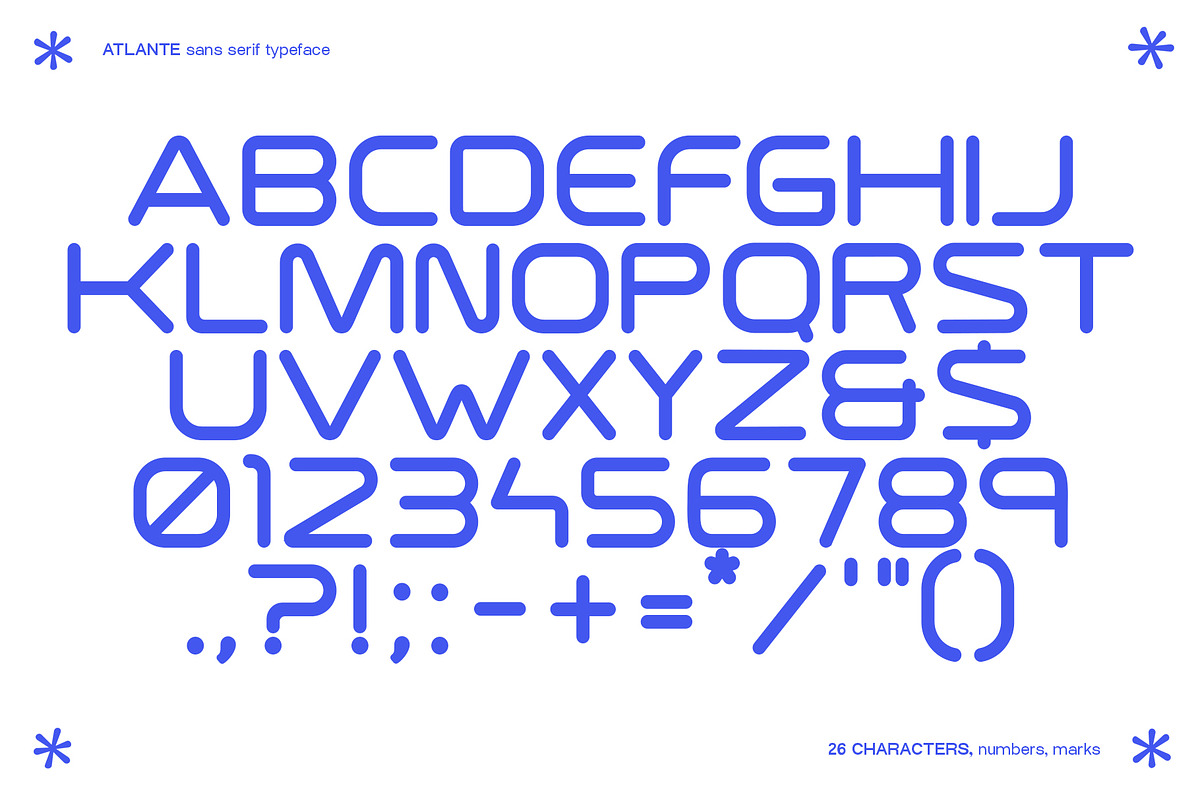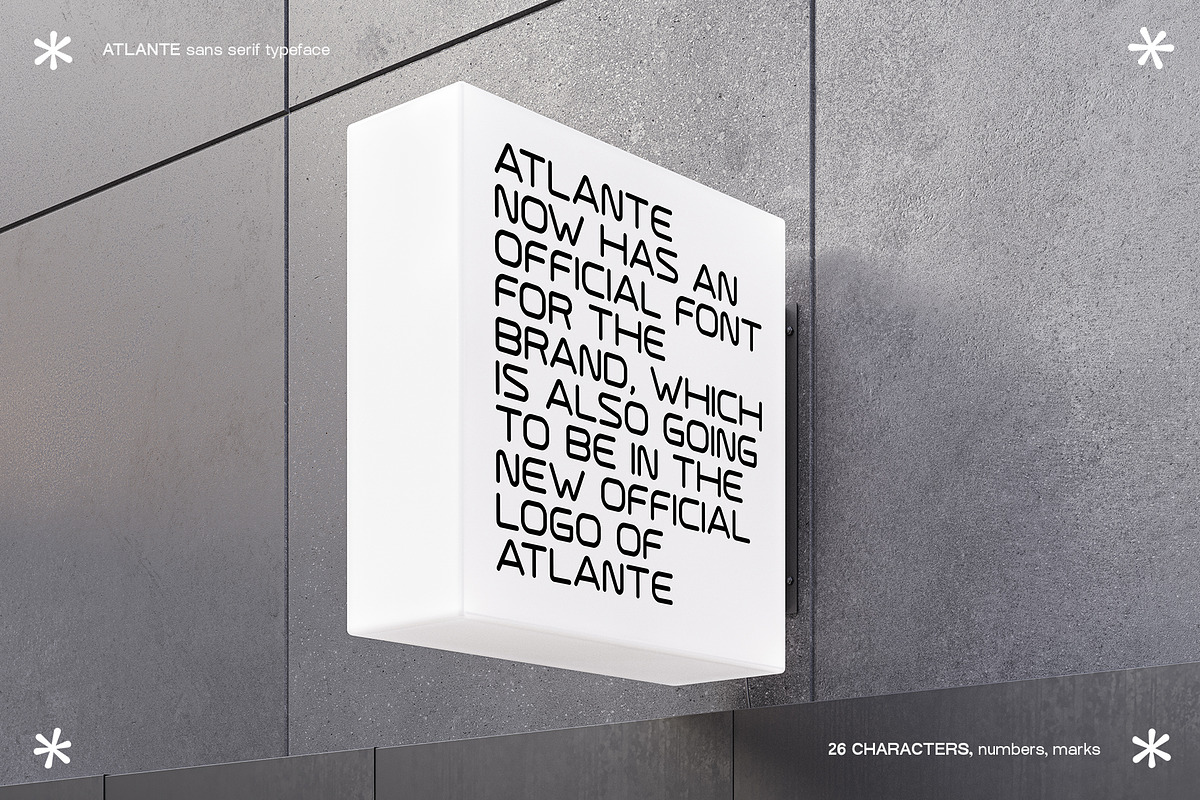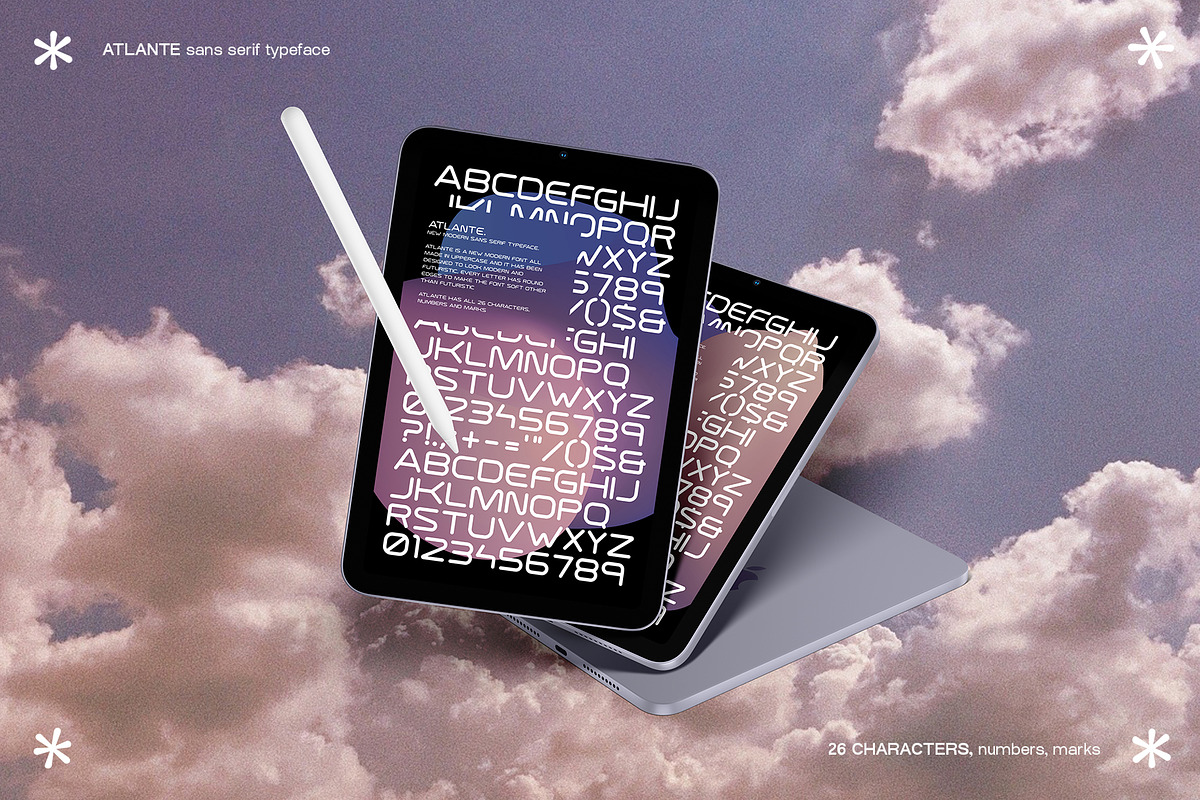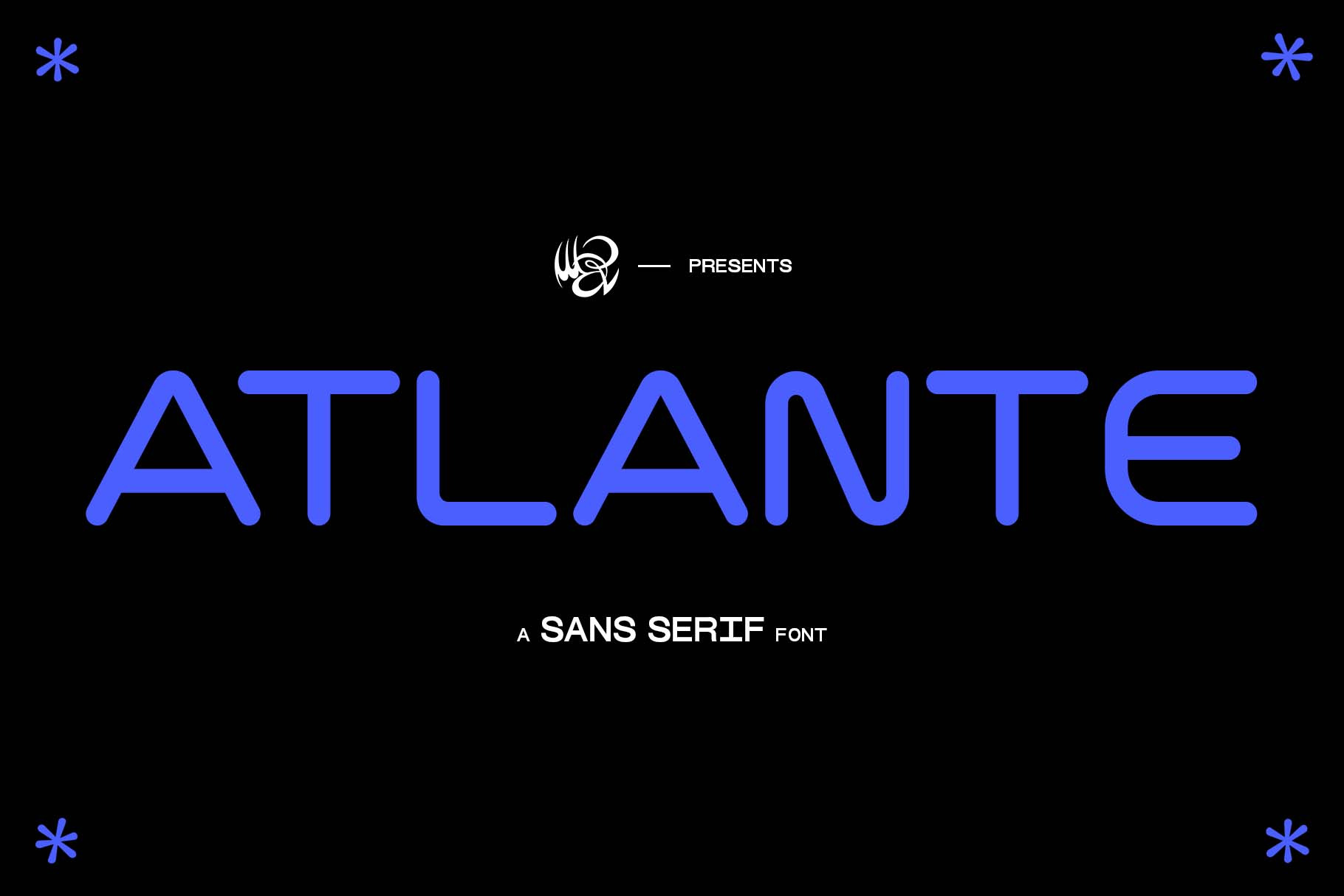
ATLANTE sans serif font
ATLANTE is a new Sans serif typeface that comes with all 26 characters, numbers and the fundamental marks. It has been designed to look warm but futuristic and modern at the same time. The letters are wide but the round edges make it look friendly and less aggressive. All designed in uppercase and it's easy to be read even in small pts because of the letter width.